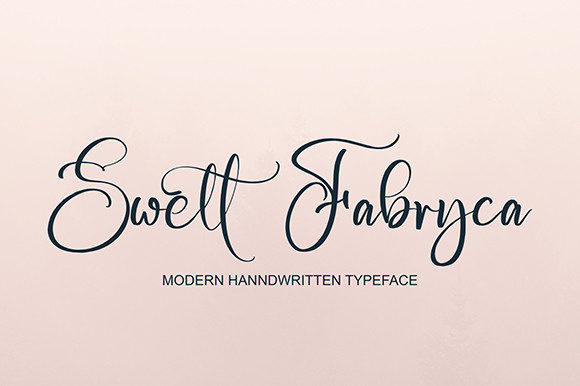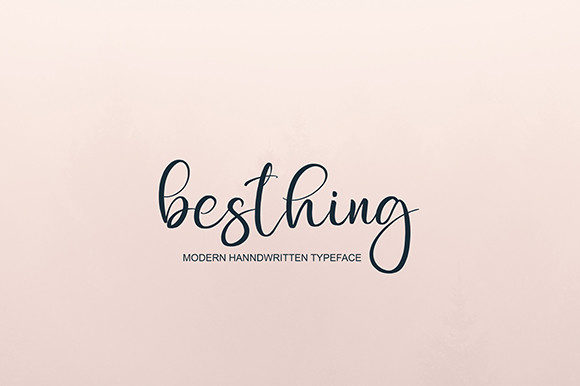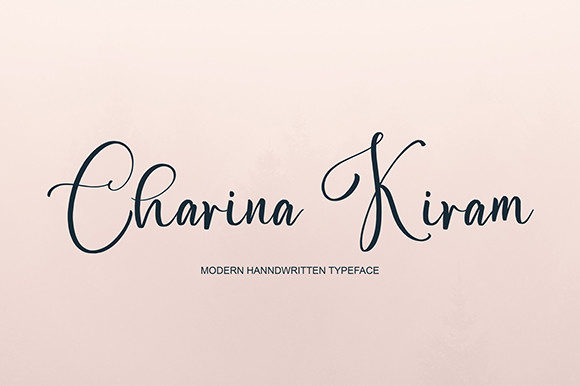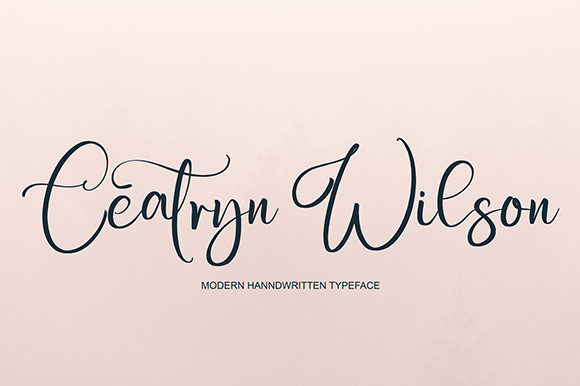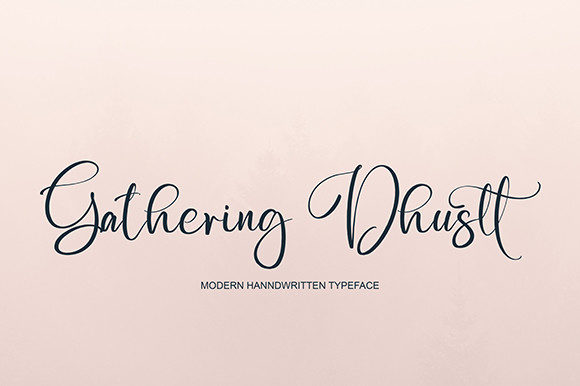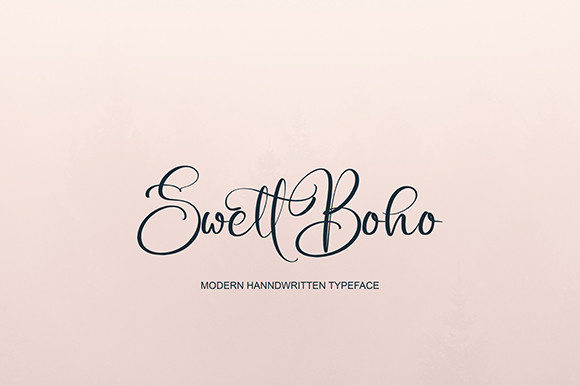
Amatyba Font – Free Download
Introduction to Amatyba Font
Amatyba is a delicate and fashionable script font.
| 👤 Author | Pineungtype & Missinklab |
It is perfect for any branding project such as logos, t-shirt printing, creative products, and more It will look extraordinary in a variety of contexts.
Key Features of Amatyba Font
Why Choose Amatyba Font?
Amatyba Font offers exceptional quality and versatility, making it a valuable addition to your design toolkit. Whether you’re creating for personal projects or commercial use, Amatyba Font delivers professional results.